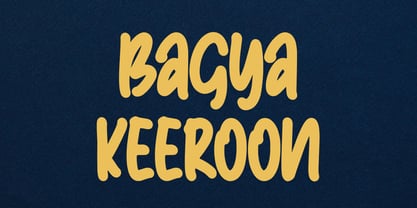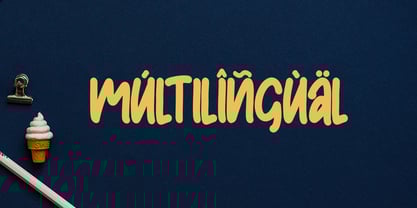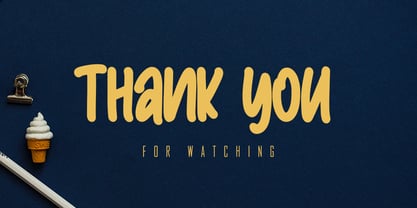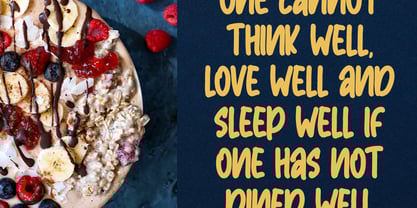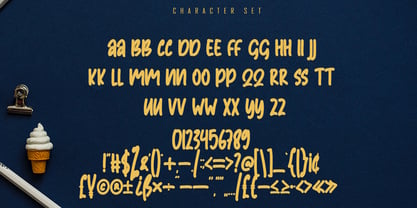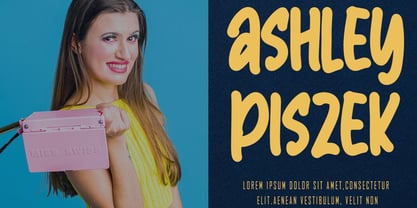
Bagya
by Skiiller Studio
The Bagya Font Family was designed by Irfan Mahmudin and published by Skiiller Studio. Bagya contains 1 styles.
Bagya is a bold handwritten sans-serif font with a friendly, energetic personality that brings warmth and charm to any design. Its rounded shapes and playful strokes create a natural handwritten feel while remaining clean and highly readable. Perfect for branding, packaging, posters, quotes, social media, and creative projects, Bagya adds a cheerful touch that helps your message stand out with personality and style.
Designers: Irfan Mahmudin
Publisher: Skiiller Studio
Foundry: Skiiller Studio